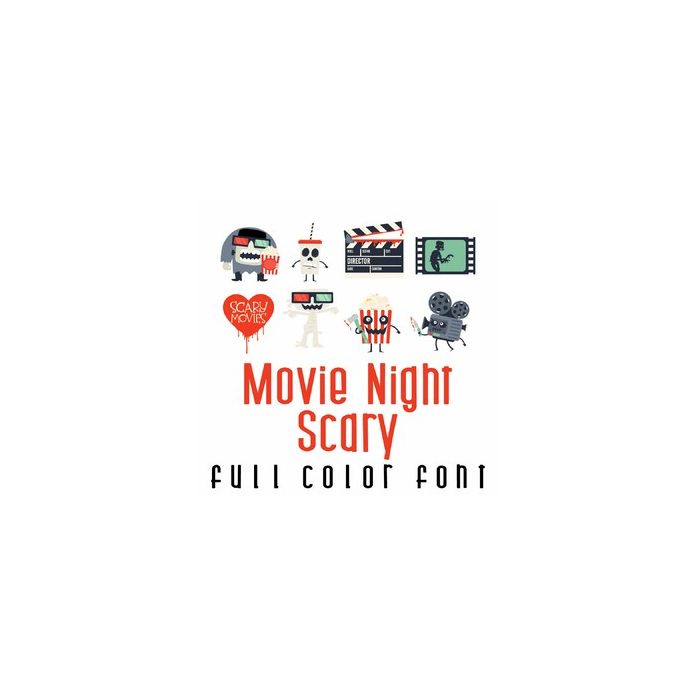
This adorable full-color doodlebat font features 26 scary movie themed images perfect for parties, cards, crafts, decor, planner stickers, scrapbook pages and more!